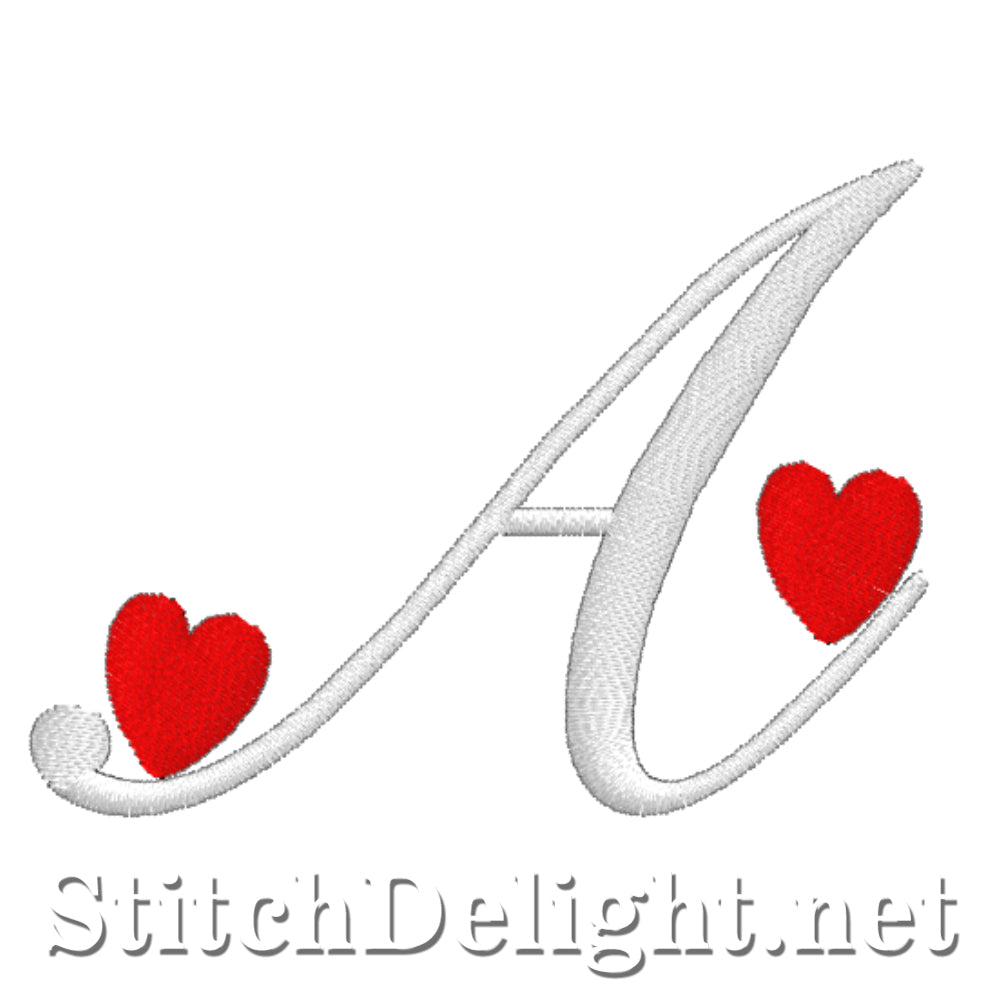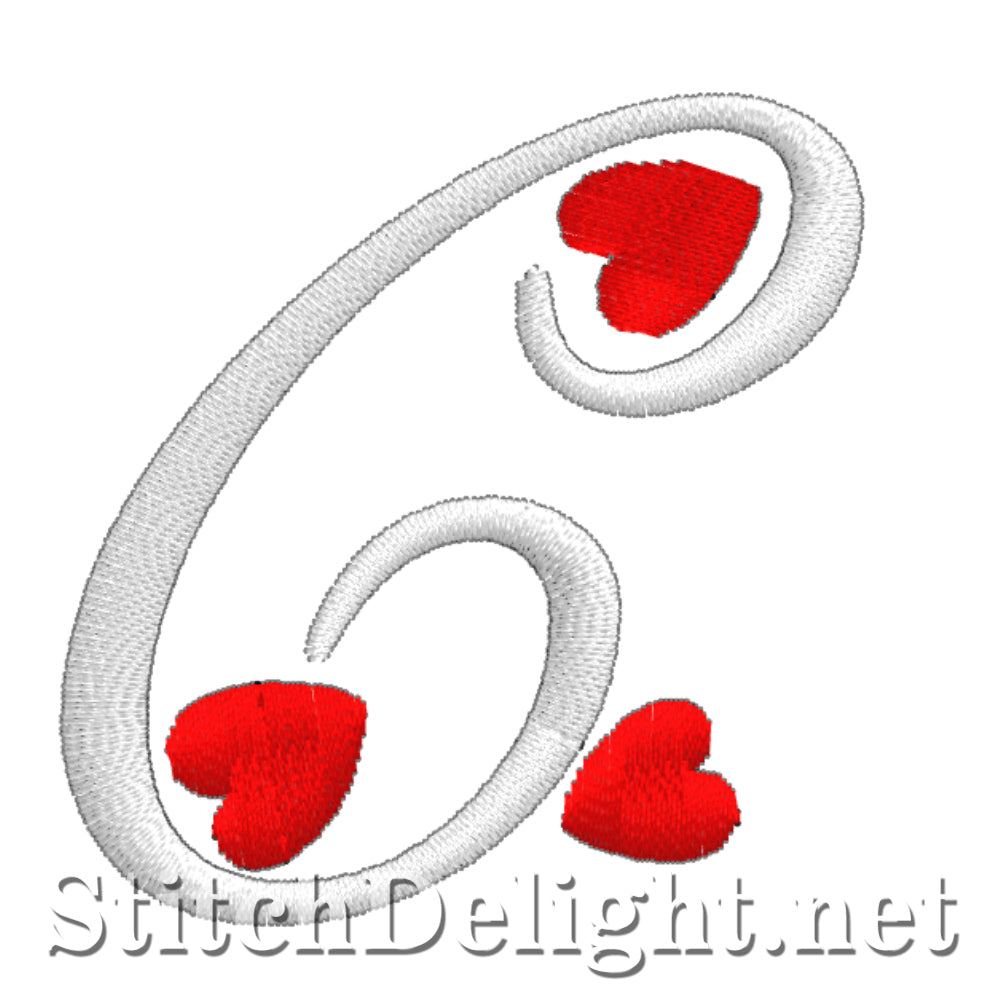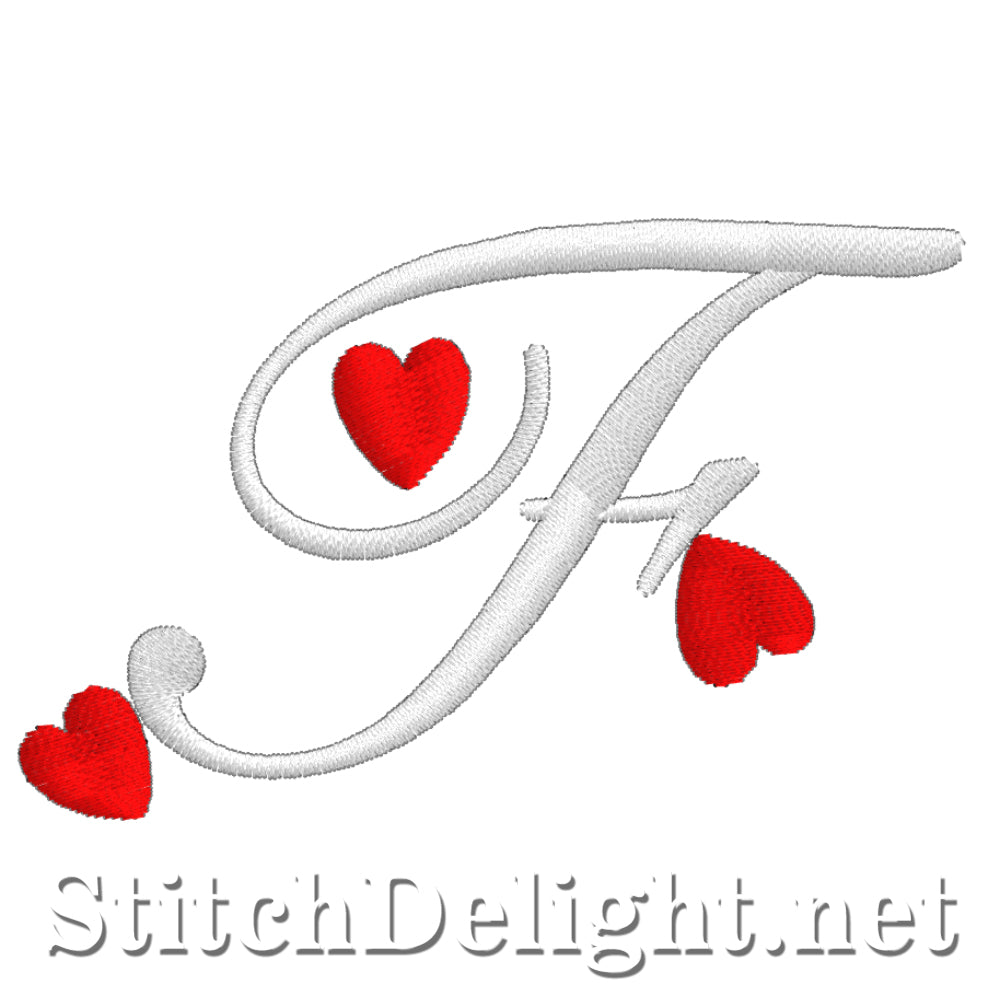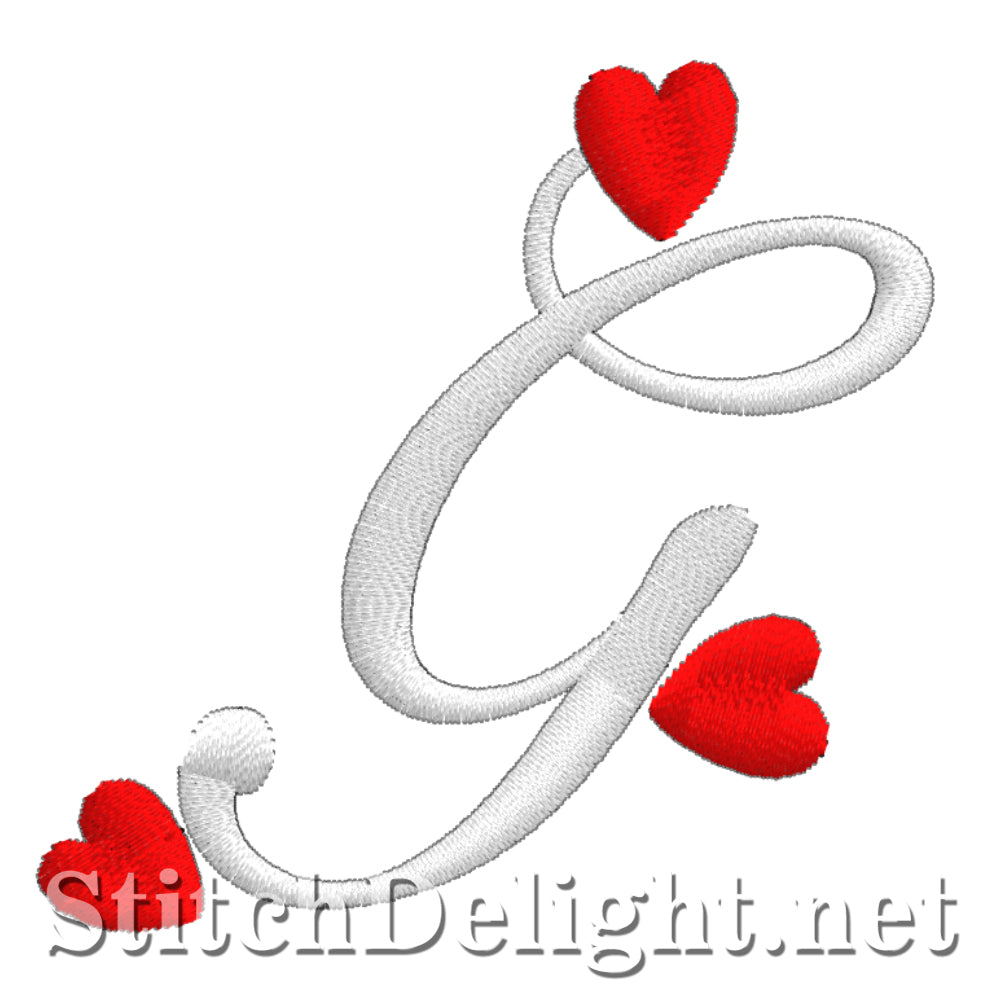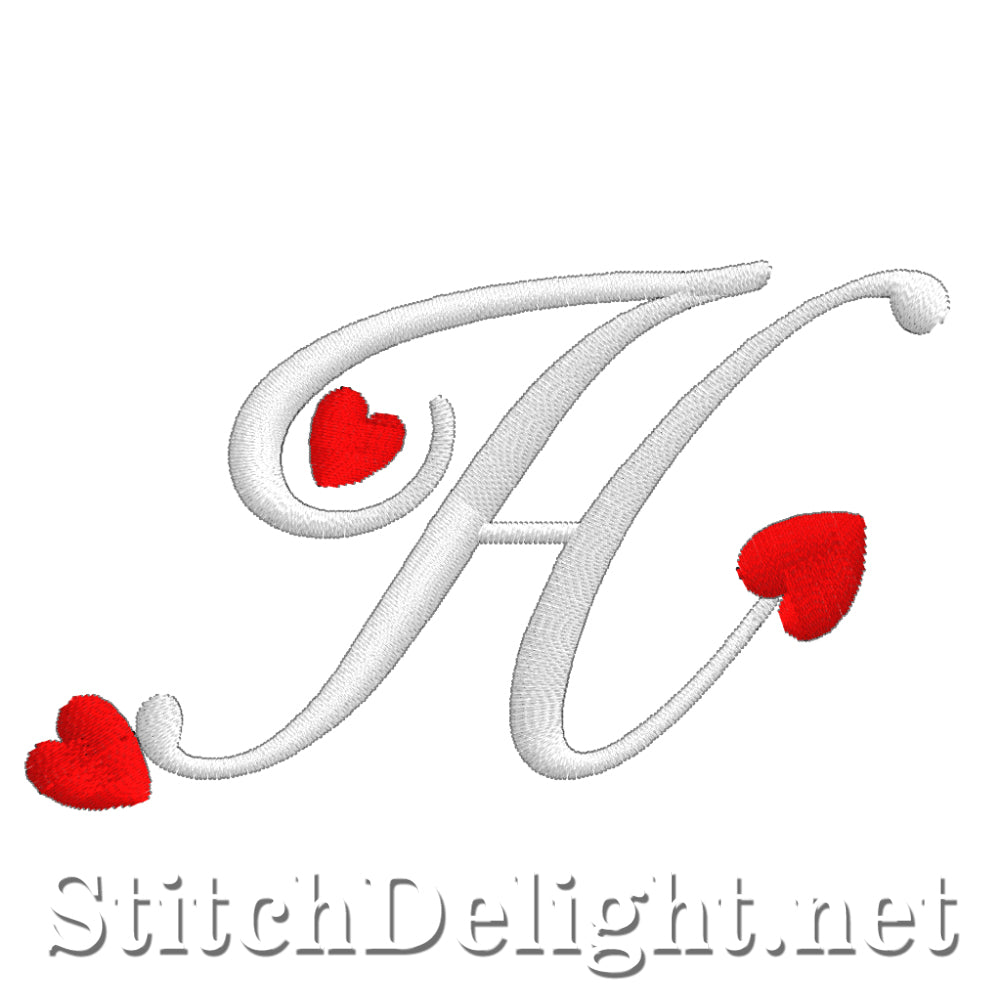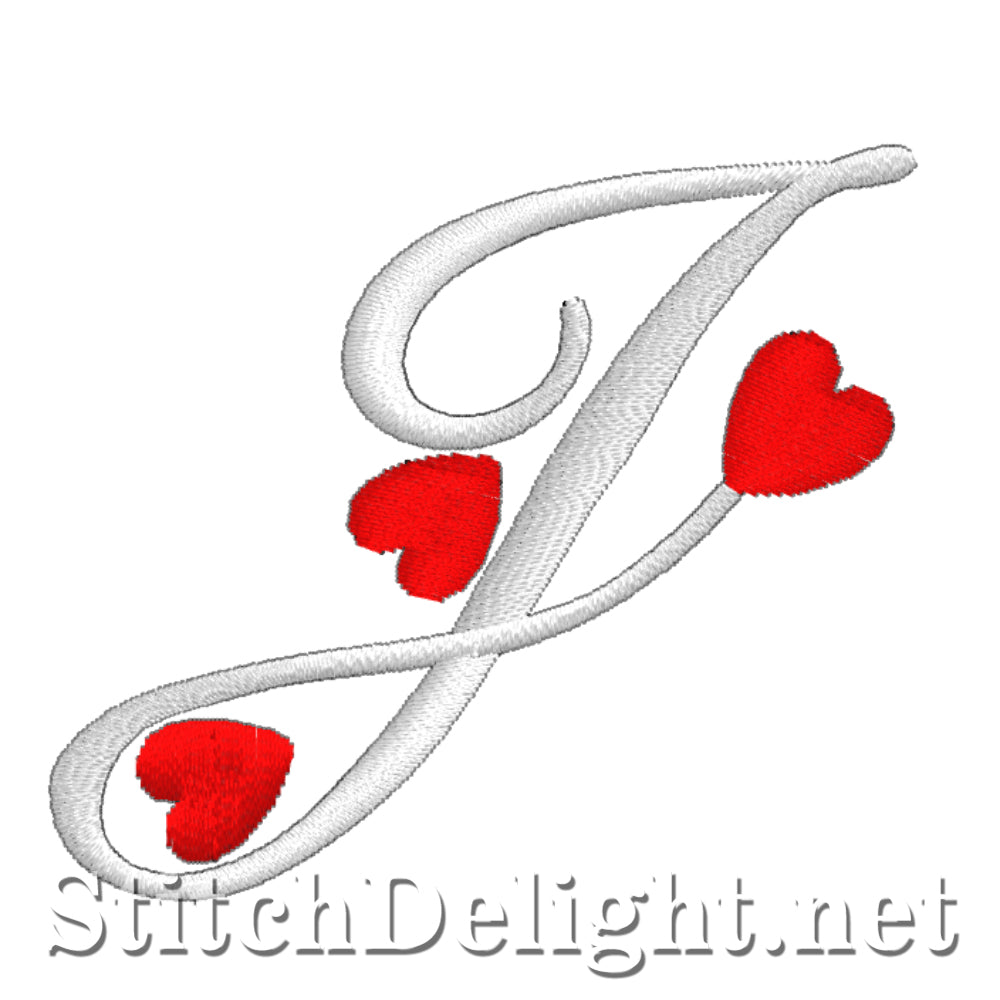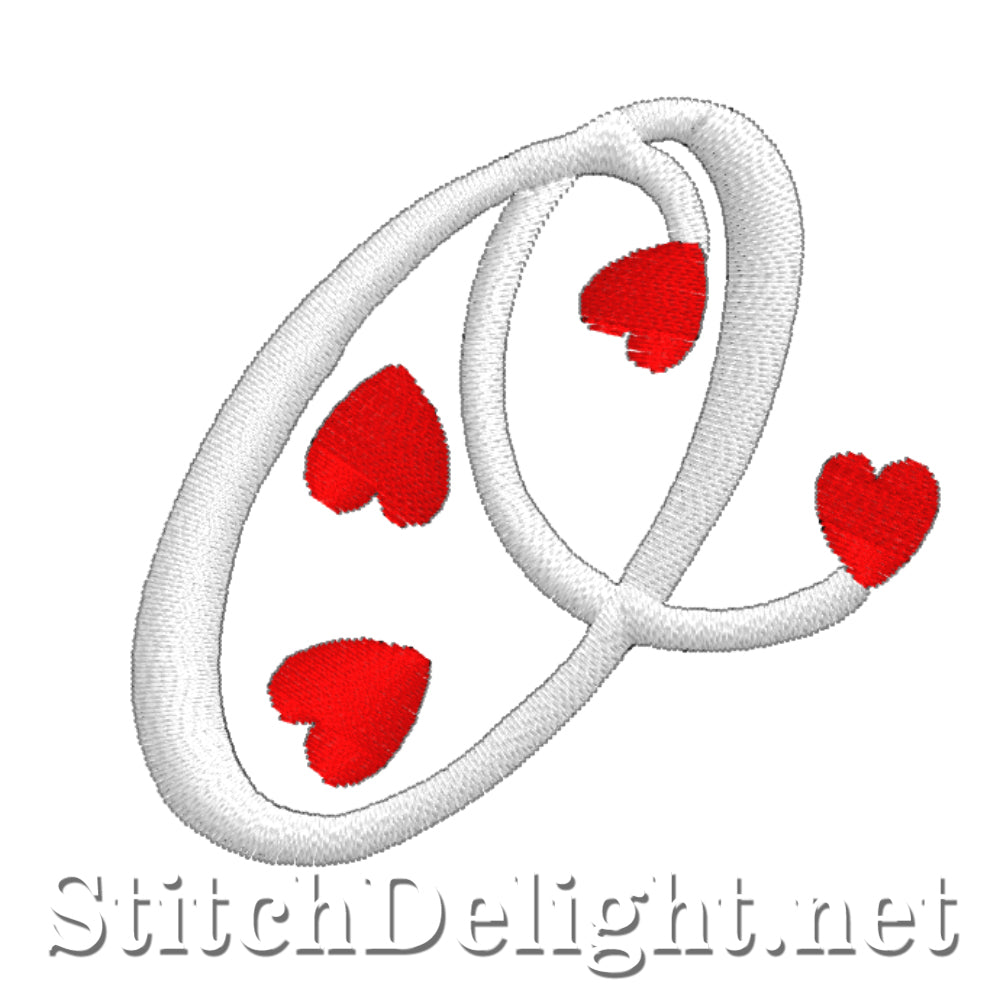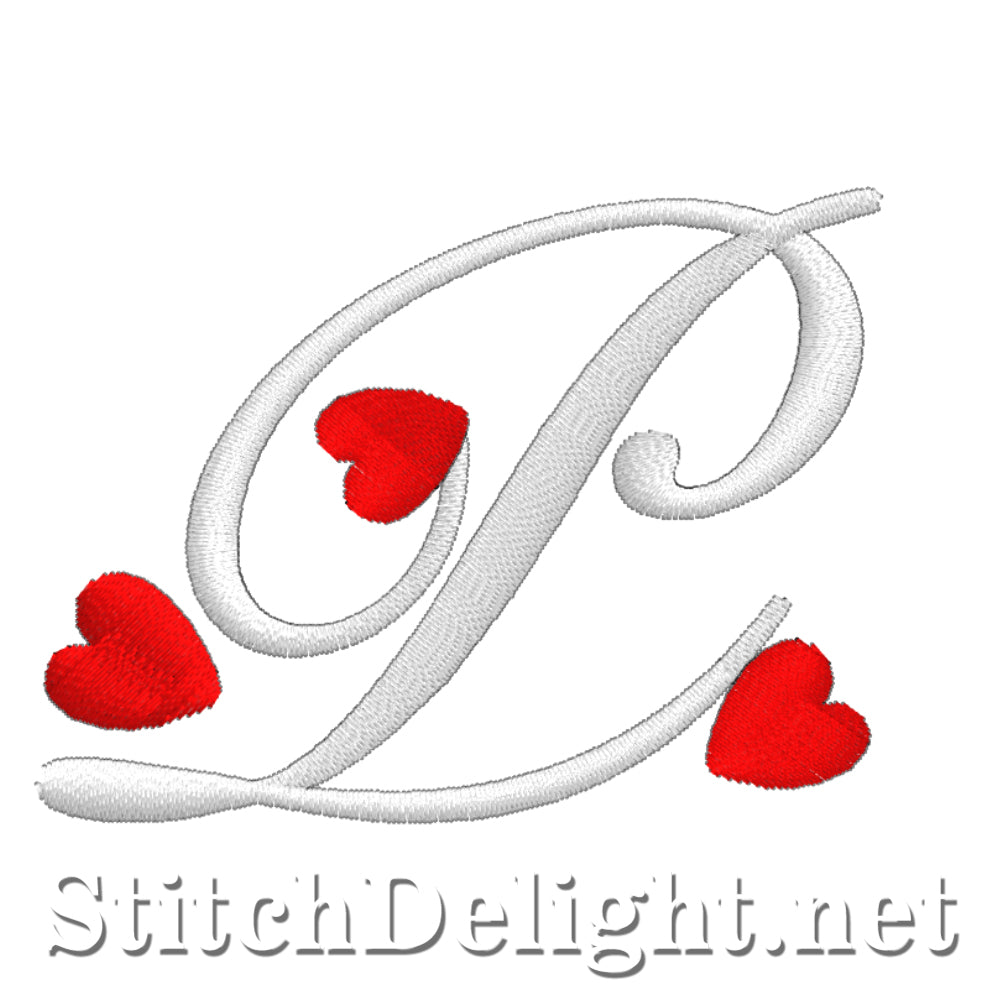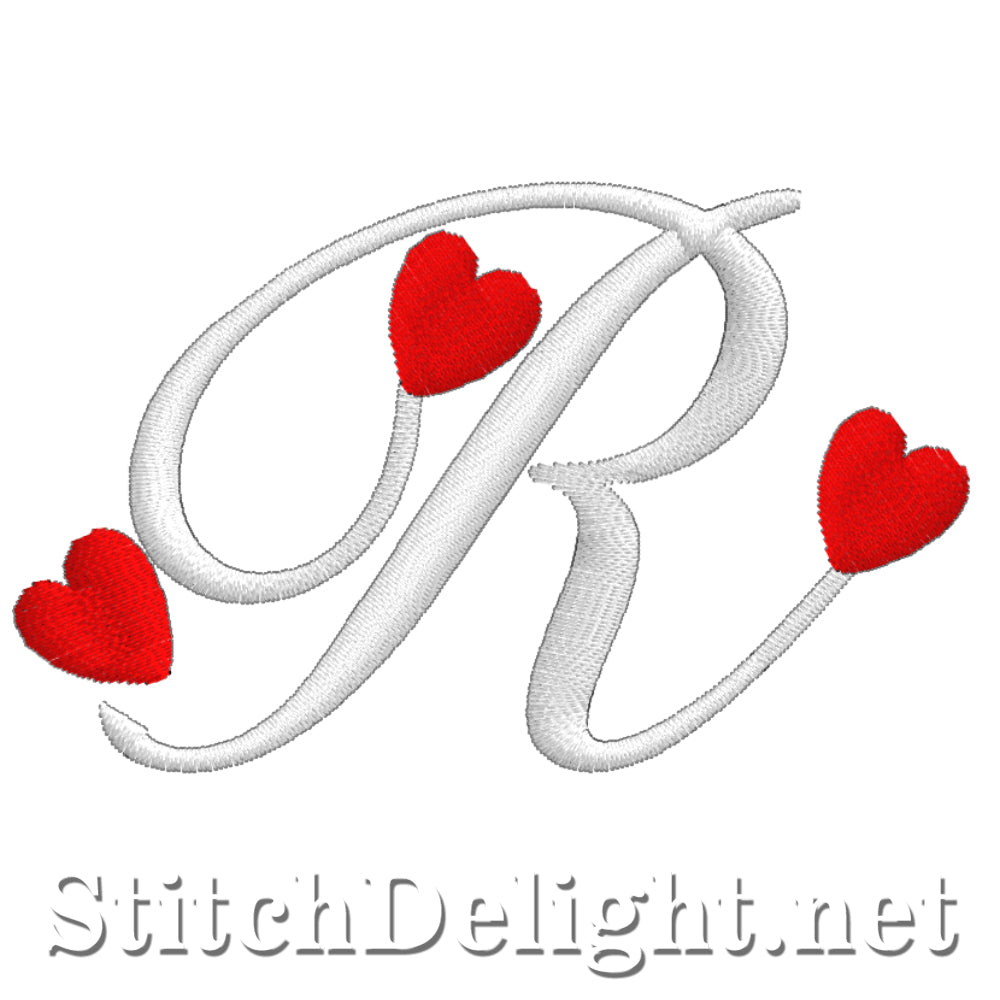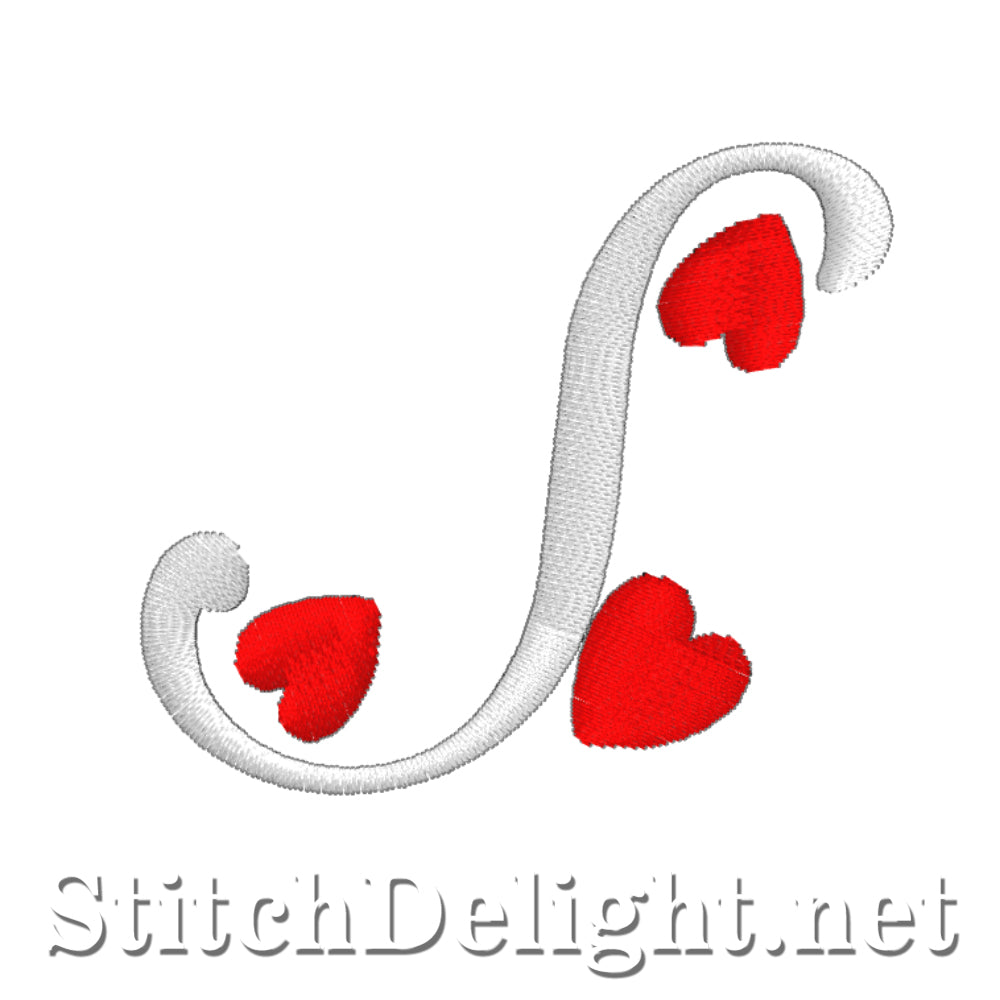
SDS4569 Love Font
With this elegant love font, you can add a touch of love to any of your projects.
Whether you're a beginner or an avid embroider this font is super fun, quick and easy to stitch. Let your imagination run free as you use this font in your designs.